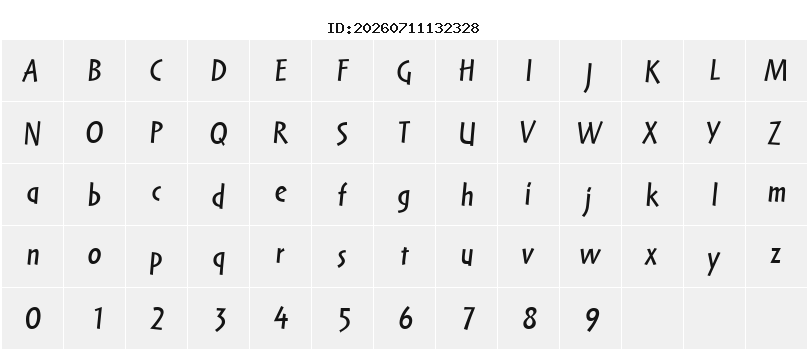
Markin LT Regular.ttf is a modern, elegant sans-serif font designed for ultimate readability and visual harmony. Perfect for branding, headlines, web design, and print materials.